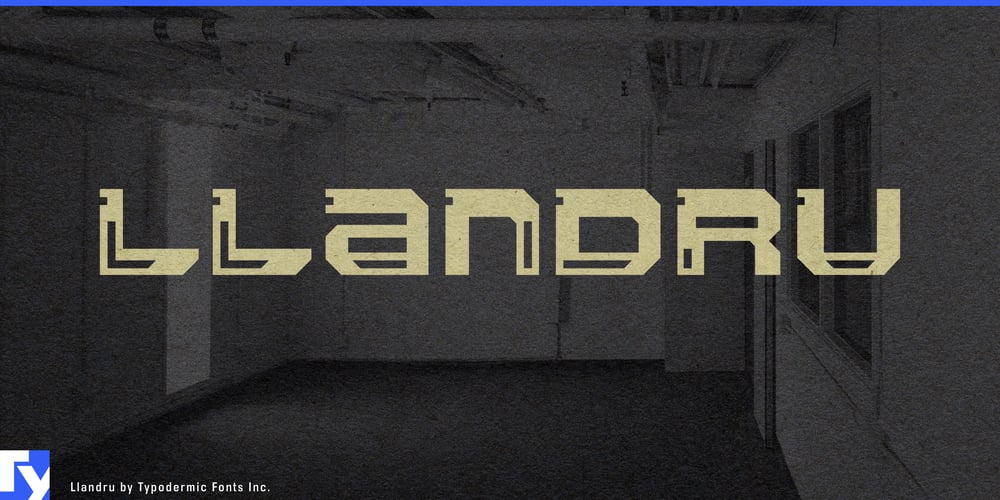
Llandru Font Family was designed by Ray Larabie and published by Typodermic. Llandru contains 1 styles and family package options. Step into a world where technology has gone awry with Llandru, a display typeface that embodies the unnerving convergence of mechanical precision and sci-fi nightmares. This bold, bizarre creation doesn’t just catch the eye—it holds it hostage, forcing viewers to confront a future where the line between human and machine blurs into obscurity.Llandru’s DNA is infused with the cold, calculating components that power our digital overlords. Its sleek, edgy lines don’t just appeal to futuristic sensibilities; they slice through conventional design norms with the ruthless efficiency of an AI gone rogue. Each character is a stark reminder of a world where form follows a function we can no longer comprehend, creating an aesthetic that’s as fascinating as it is deeply disquieting. But Llandru isn’t content with mere visual disruption. Through the magic of OpenType stylistic alternates, it offers a variety of filled counter options that transform letters into alien glyphs. These alternatives don’t just pop—they pulsate with an otherworldly energy, as if each character is a portal to a dimension where our worst technological fears have been realized.In a landscape of cookie-cutter designs, Llandru stands as a monument to techno-paranoia. It’s the perfect choice for projects that demand more than attention—they demand submission. From dystopian novel covers to avant-garde tech branding, Llandru infuses every application with a sense of impending digital doom. Llandru speaks the language of a fragmented future. Its extensive character set covers a vast array of Latin-based European languages, ensuring your message of techno-dread can be understood from the neon-drenched streets of Neo-Tokyo to the offline bunkers of Nova Scotia. Whether you’re crafting warnings in Dutch or digital epitaphs in Portuguese, Llandru renders your text with the same cold, mechanical precision that might one day render humanity obsolete.Embrace the aesthetics of anxious anticipation. Get Llandru now and inject your designs with a shot of silicon-based terror. In a world teetering on the brink of a technological singularity, Llandru is a glimpse into the uncanny valley of our inevitable future.